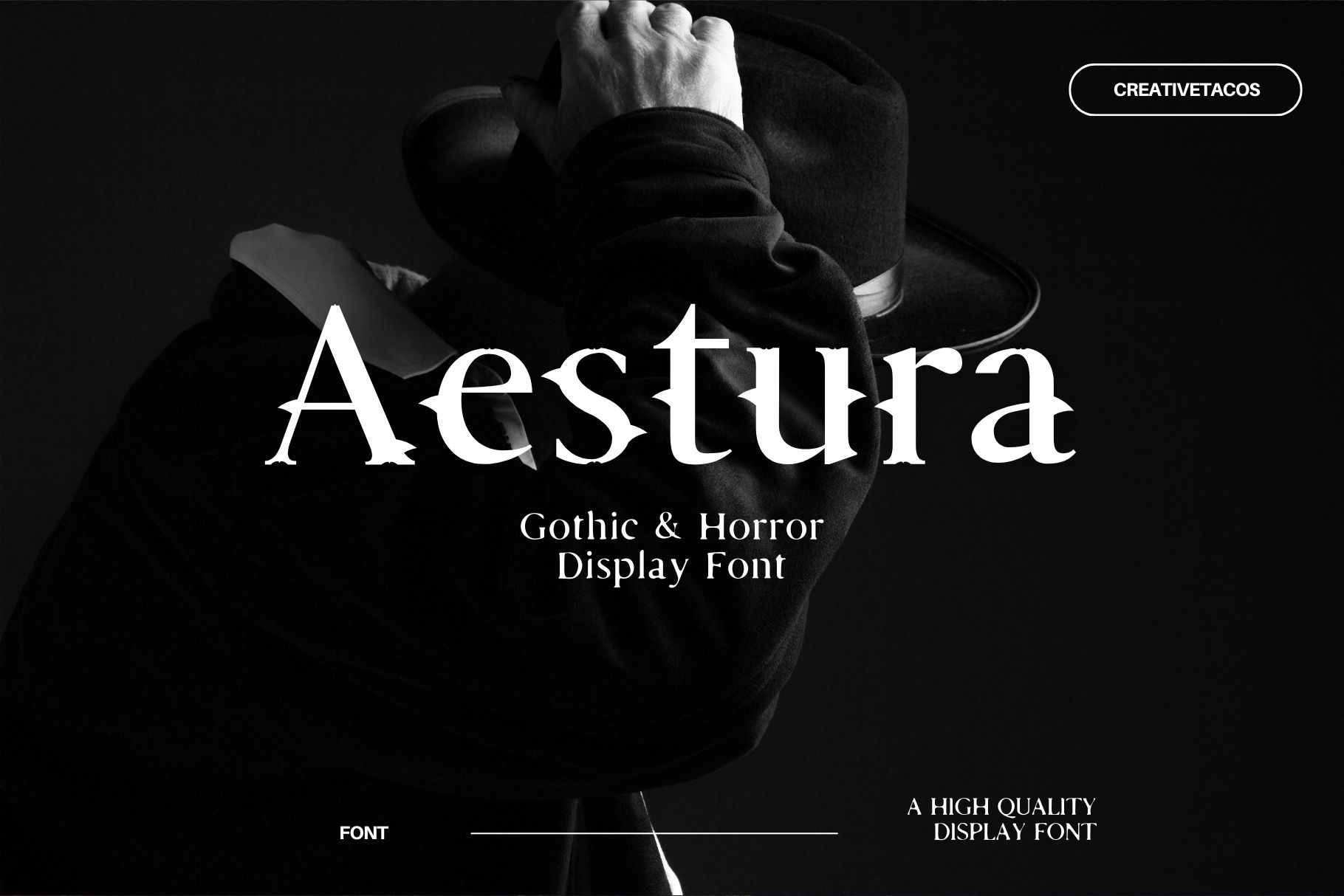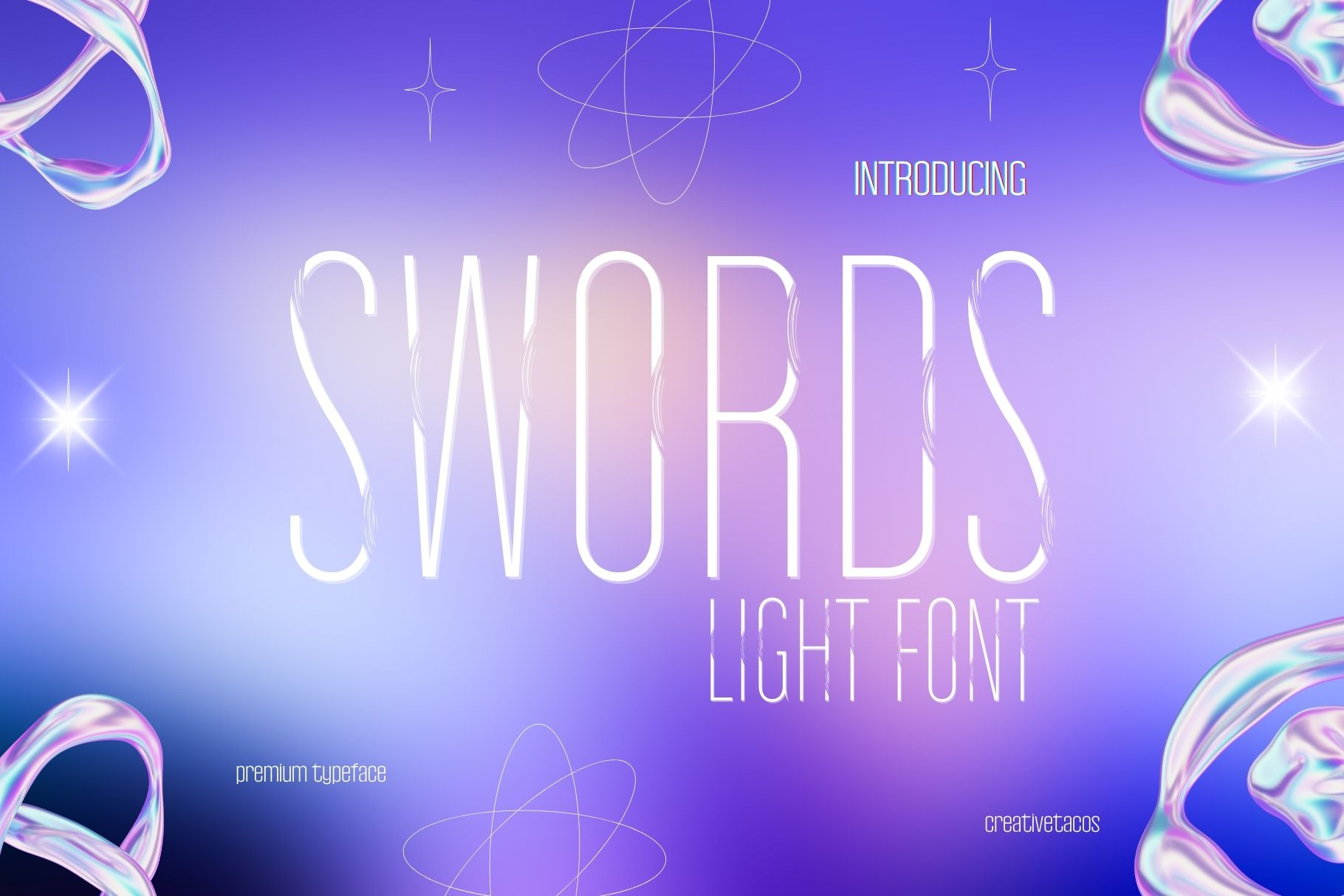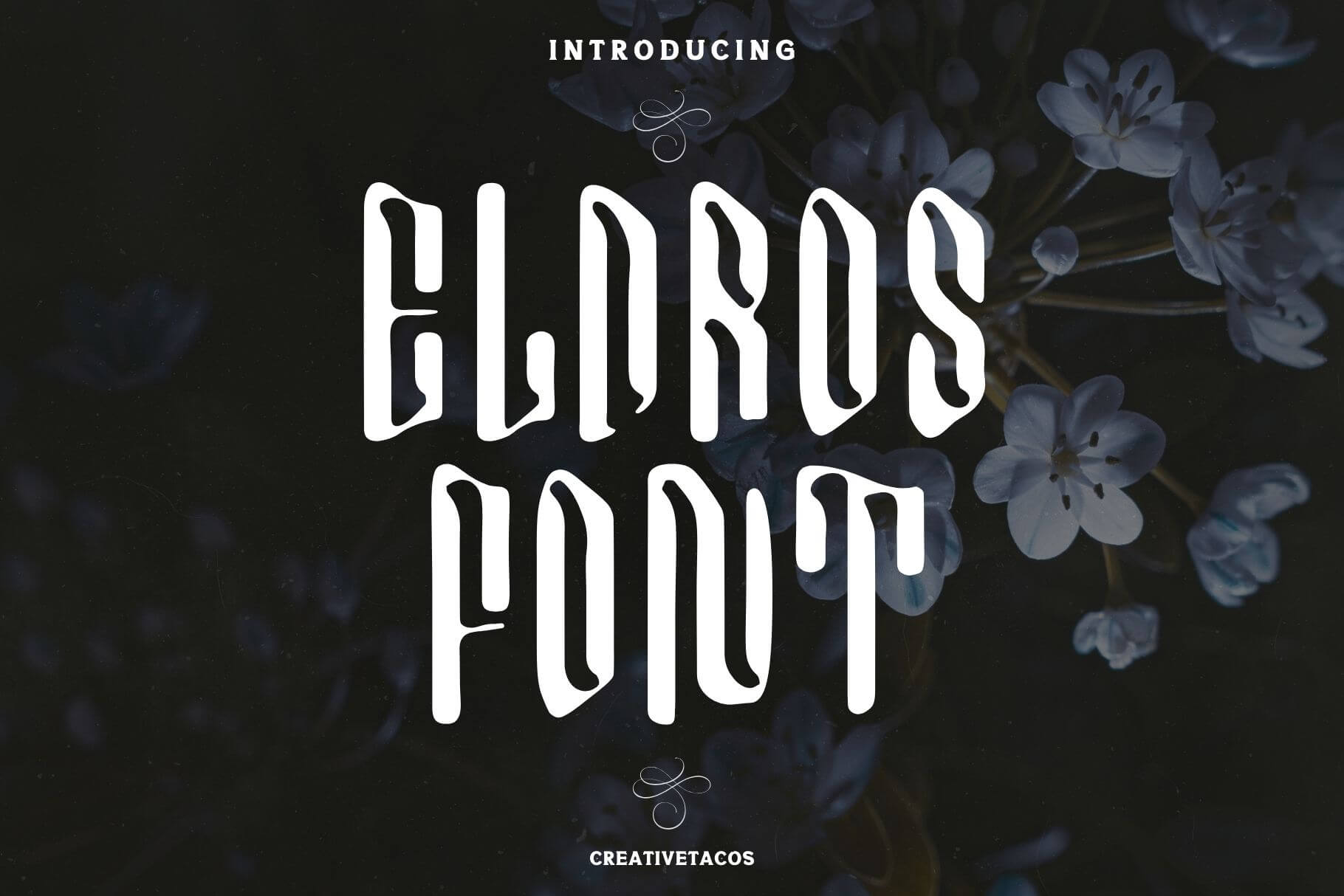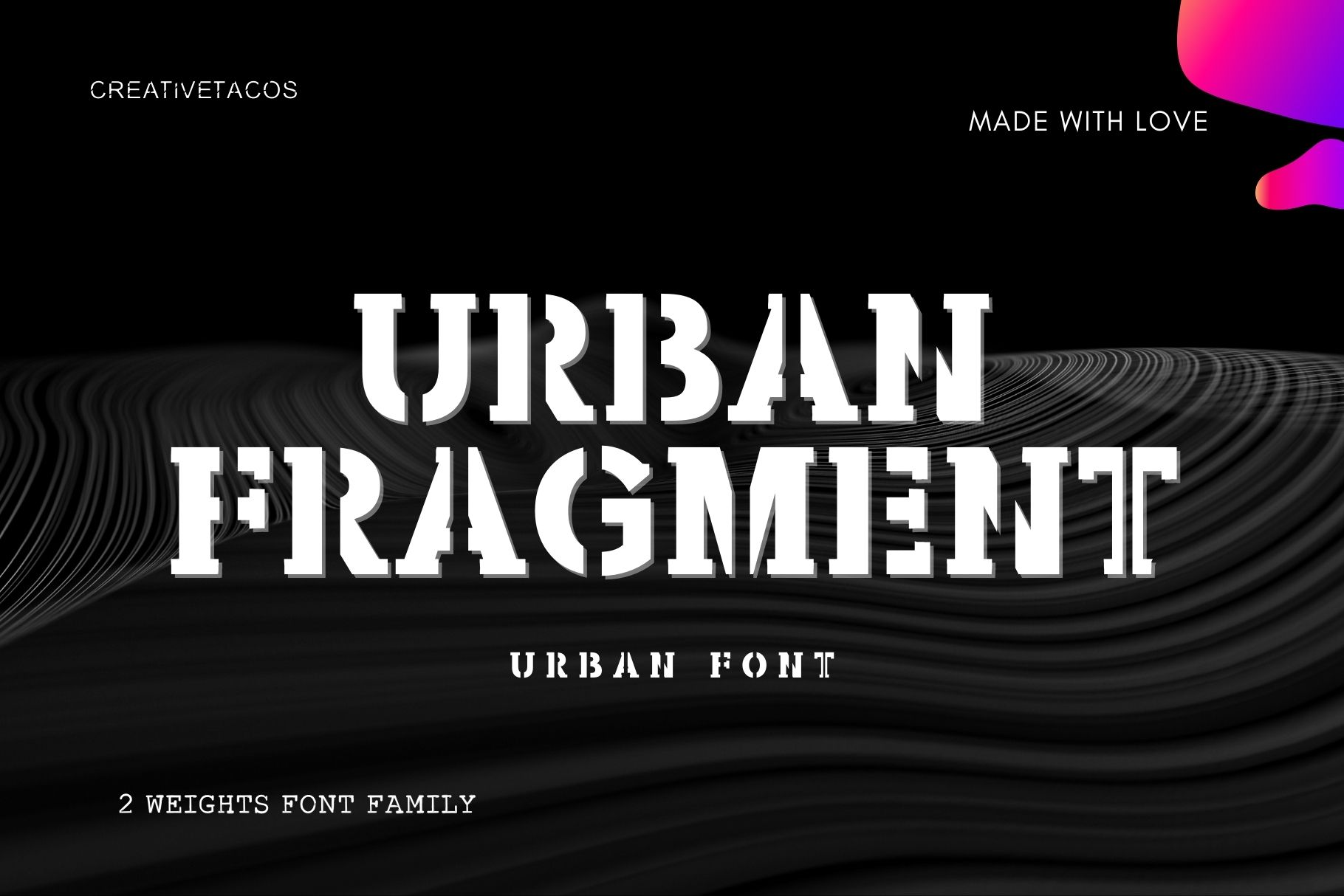
10 Sci-Fi Fonts for TV Shows That Bring the Future to Life
Are you creating posters for a Sci-Fi movie or TV show, or working on a short film poster? Maybe you’re designing for a sci-fi project that needs a futuristic feel. These Sci-fi fonts are perfect for giving your project that “future” feel, just like the titles we’ve seen in many sci-fi movies. Inspired by those iconic fonts, they will bring the sense of tomorrow into your designs.
These movie fonts are ideal for use in sci-fi TV show posters, banners, or any futuristic projects. They help highlight the key elements that make your designs stand out, giving them a modern and advanced look. Whether you want a bold, edgy style or a sleek, minimal vibe, these fonts can match any creative vision perfectly.
Perfect Sci-Fi Fonts for Creating Futuristic TV Show Posters
Aestura Font – A Gothic & Horror Sci-fi Font
Aestura Font is a Gothic font that brings a spooky, bold look to your designs. Its sharp and dark letters work well for horror movies, book covers, or Halloween projects. The font’s strong appearance instantly catches the eye and adds a mysterious atmosphere.It comes with uppercase, and lowercase letters, numbers, and special characters for different languages. Whether your project is Gothic, fantasy, or just needs a dramatic touch, Aestura creates a bold, haunting vibe.
Cyber Chunk Font – Modern Futuristic Sci-Fi Font
Cyber Chunk Font is a modern and bold typeface designed to give your work a sharp, futuristic feel. Its smooth lines and unique wave details are great for everything from logos and titles to web design and branding. This flexible font adds a fresh look to tech designs, sci-fi themes, and more.
Modern Vaporwave Sci-fi Font
Modern Vaporwave Font is a modern and bold typeface designed to give your work a sharp, futuristic feel. Its smooth lines and unique wave details are great for everything from logos and titles to web design and branding. This flexible font adds a fresh look to tech designs, sci-fi themes, and more.
Swords Light Font
Swords Light Font is a modern and sleek typeface designed to give a sharp, futuristic feel to your work. With its smooth lines and unique wave details, it’s great for everything from logos and titles to web design and branding. This font is flexible and adds a fresh look to tech designs, sci-fi themes, and more.
Eldros Font Modern Sci-fi Typeface
Eldros Font is a modern and bold typeface designed to give your work a sharp, futuristic feel. Its smooth lines and unique wave details are great for everything from logos and titles to web design and branding. This flexible font adds a fresh look to tech designs, sci-fi themes, and more.
Helix Wavy Futuristic Sci-fi Font
Helix Wavy Futuristic Font is a stylish and modern font that features a unique wavy pattern in each letter. It’s perfect for giving your designs a fresh, futuristic vibe, making it ideal for logos, titles, and various creative projects. This font is versatile and can be used in many different ways. It shines in tech-focused designs, sci-fi themes, and any project that needs a modern touch.
Urban Fragment Font
Urban Fragment Font is a modern and bold typeface designed to give your work a sharp, futuristic feel. Its smooth lines and unique wave details are great for everything from logos and titles to web design and branding. This flexible font adds a fresh look to tech designs, sci-fi themes, and more.
Carverine Futuristic Font
Carverine Futuristic Font is a sleek and futuristic typeface designed to bring a modern edge to your projects. Its clean lines and unique wave patterns make it perfect for various design applications, from logos and titles to web design and branding. Carverine Font is versatile and offers a fresh look that can be used in tech-focused designs, sci-fi themes, and beyond.
Starlight Street Font – Modern Movie Font
“Starlight Street font” is a futuristic and cinematic font that provides a modern look to many projects like TV Shows, OTT, Music Albums. With its sharp lines and unique cutouts, this font brings a bold and distinctive feel to your designs. It’s perfect for creating movie titles, posters, and logos that need to stand out and make an impact. This font includes a full set of uppercase letters and numbers. Its clean and stylish design makes it versatile for many uses, whether you’re working on a digital or print project.
Manapaka Display Font
The Manapaka Display font is a fun, playful and creative bold font that can bring joy and happiness to any of your following project. Manapaka font is excellent to use for headers, logos, captions, posters, invitations, digital graphics, packaging, presentations, headlines, lettering, branding, quotes, titles, magazine headings, web layouts, advertising, especially for the sports branding industry, but just as good for any other projects.
These 10 sci-fi fonts are ideal for giving your TV show or movie posters a futuristic and modern look. Whether you need a bold or sleek style, these fonts can help your designs stand out and capture the essence of the future. Use them in your next project to bring a fresh, imaginative feel to your creative work.